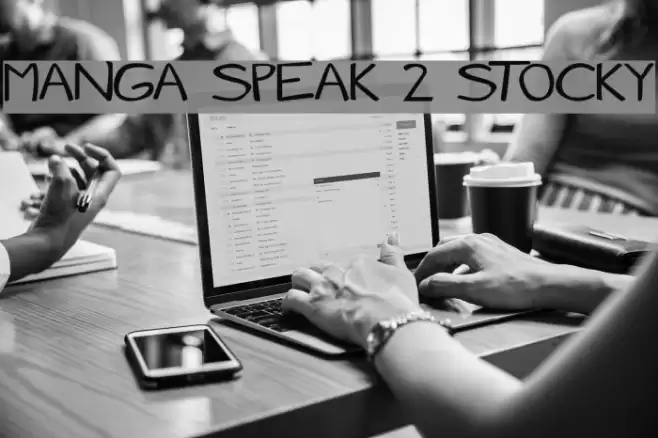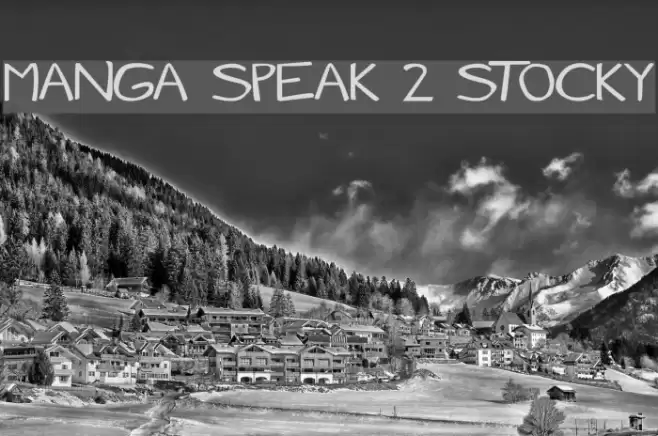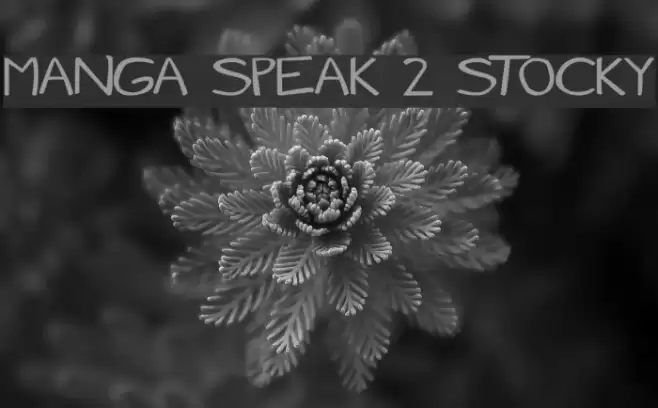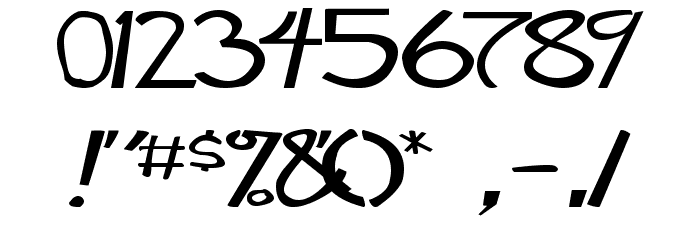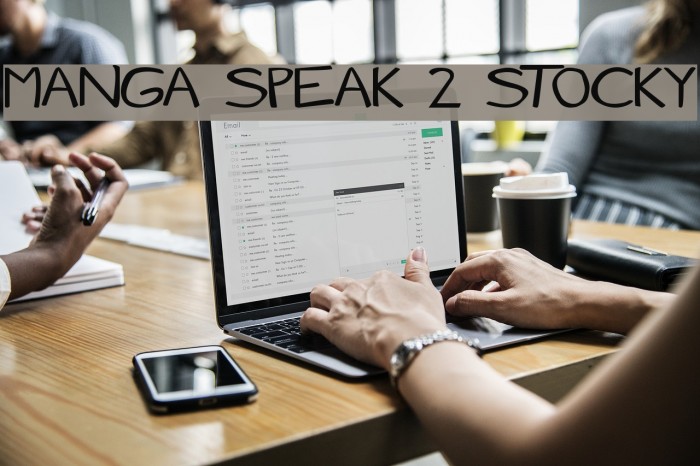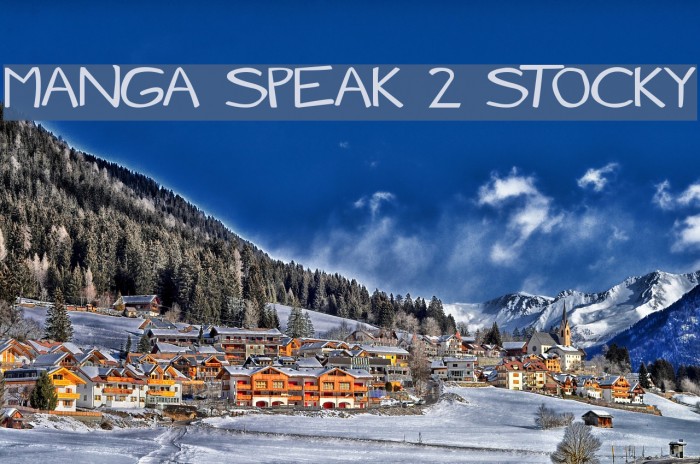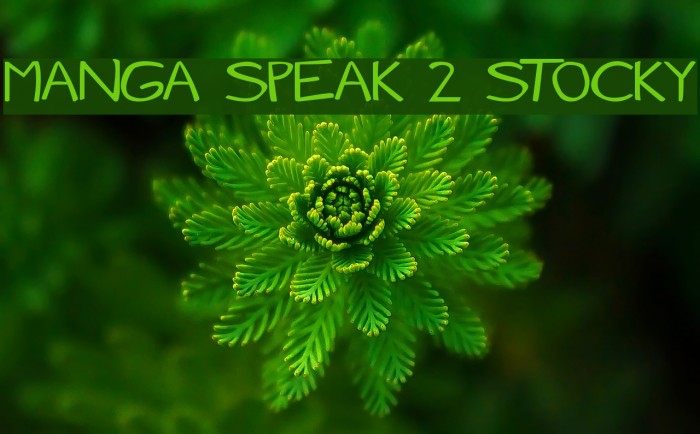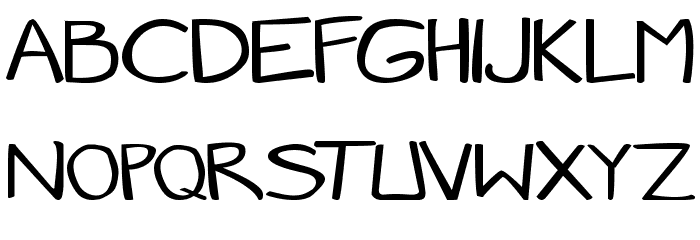
Manga speak 2 stocky Font
Manga speak 2 stocky Description
This font features a playful and bold style, characterized by its thick, rounded strokes and slightly irregular shapes. The uppercase and lowercase letters maintain a consistent height, giving it a uniform appearance. The numbers and special characters follow the same design principles, ensuring a cohesive look across all elements. The font's informal and friendly vibe makes it suitable for projects that aim to convey a sense of fun and approachability. Its unique style is reminiscent of comic book lettering, making it ideal for creative and artistic applications.
A playful, bold font with rounded strokes and comic book style from Uncategorized fonts.
- Proposed Projects: Ideal for comic books, children's books, playful branding, and creative posters.
- Overall Style: Playful, Comic